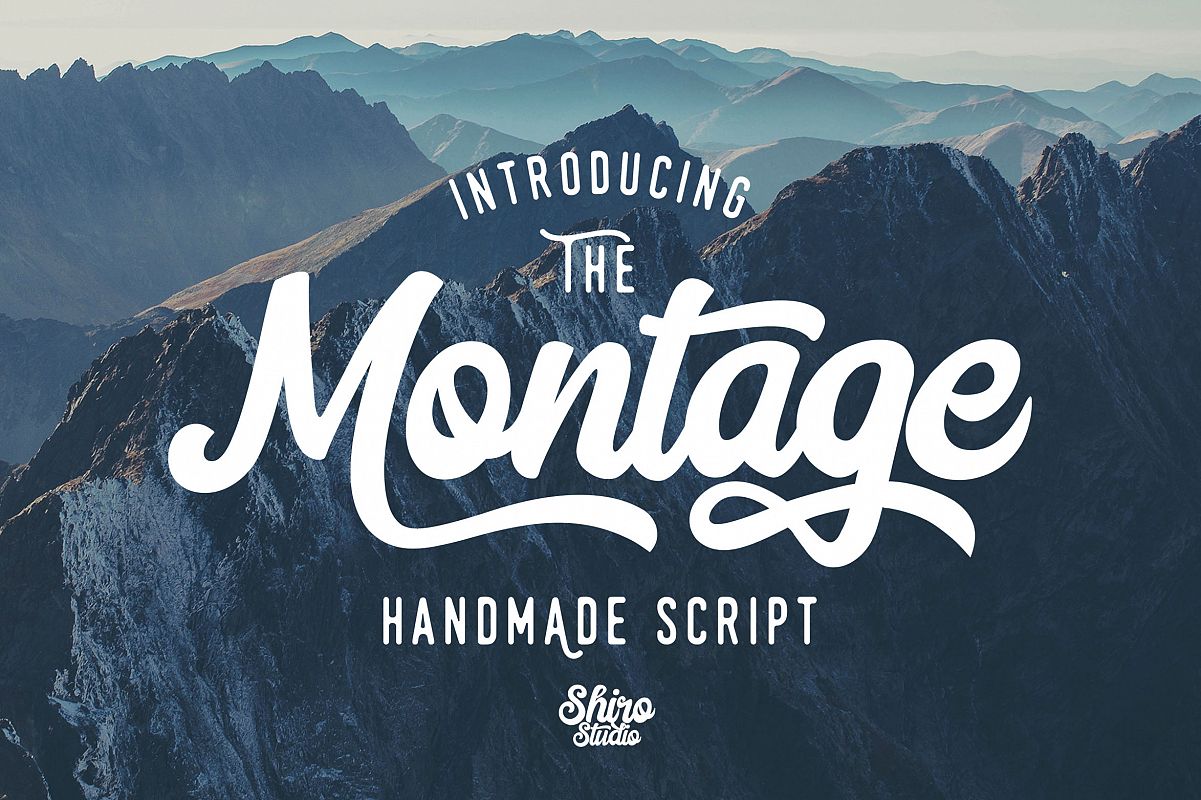
The Montage Script is stylish handmade script.
Comes with stunning opentype features, very great for branding projects,
product packaging, homeware design,or simply as a stylish text overlay
to any background image.
- Opentype : Stylistic Alternate, Ending SS01, Stylish Set SS02, Swash, Ligature